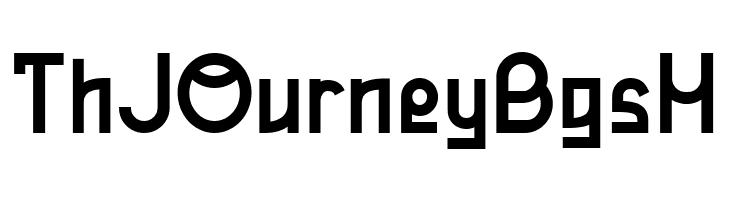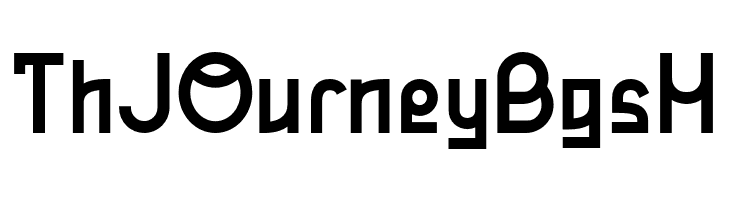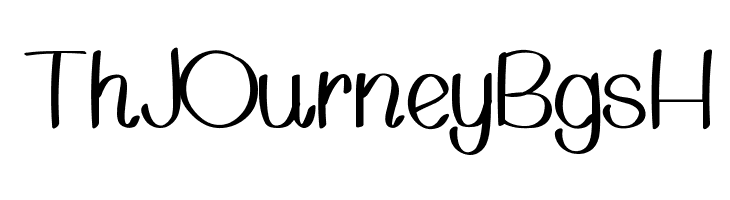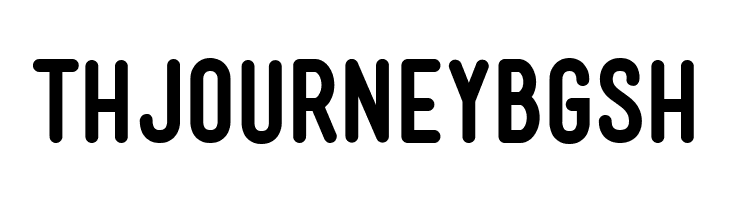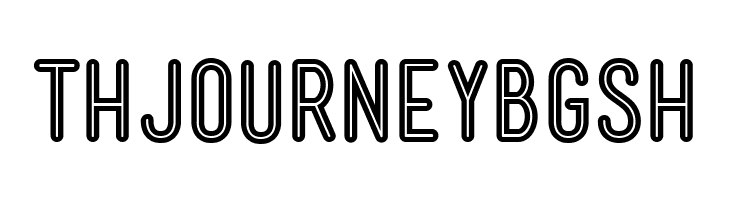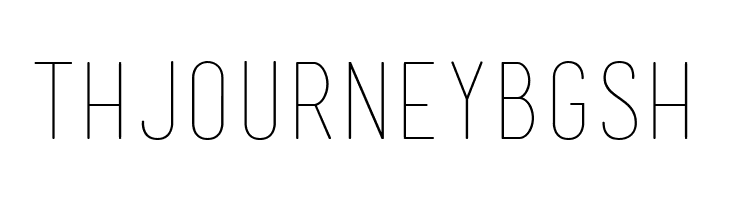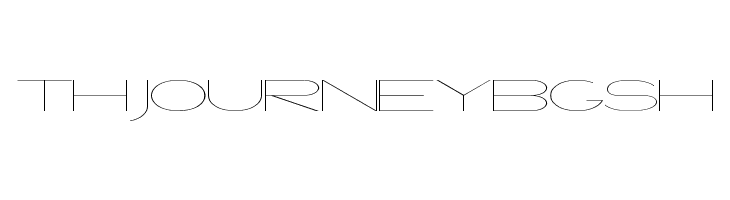
A bold, rounded sans-serif font with a modern and approachable style.
A bold, inline font with a modern yet retro style, ideal for impactful designs.
A bold, modern inline font with a playful and structured design.
A modern, thin, and geometric font with uniform strokes and high legibility.
A sleek, modern font with thin, elongated lines and a geometric structure.
A bold, geometric typeface with a modern, tech-inspired design.
A bold, geometric font with a modern, tech-inspired design.
A playful, handwritten font with a whimsical and friendly style.